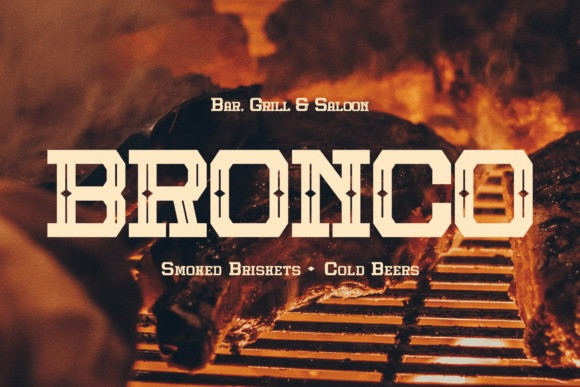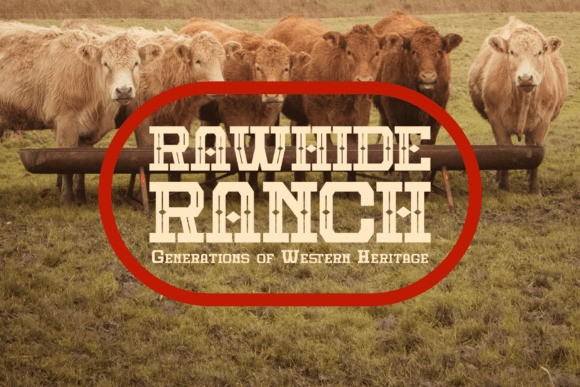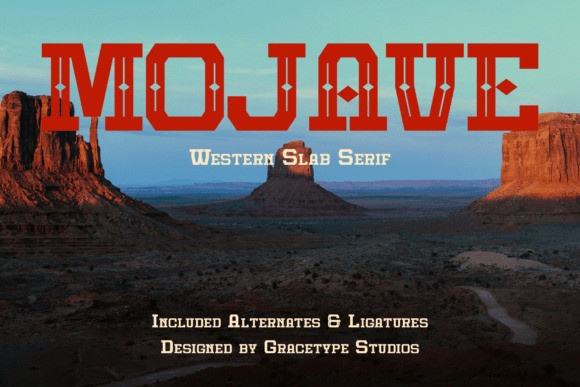
Mojave Font
Mojave Font a powerful, timeless weight to your creative canvas with Mojave, a robustly structured display typeface engineered as a premium Heritage Slab Serif Font. This high-impact all-caps font features massive, extra-bold block characters characterized by unyielding slab serifs, strong vertical stems, and hard, geometric transitions that anchor each letter with a commanding structural stance. Balancing vintage industrial aesthetics with a modern editorial layout grid, its clean lines and heavy presence ensure absolute readability. Mojave is the premier choice for vintage craft brewery branding, rugged outdoor apparel logos, artisanal product packaging, adventure magazine headers, automotive or hardware design systems, and high-contrast, authoritative social media headlines.